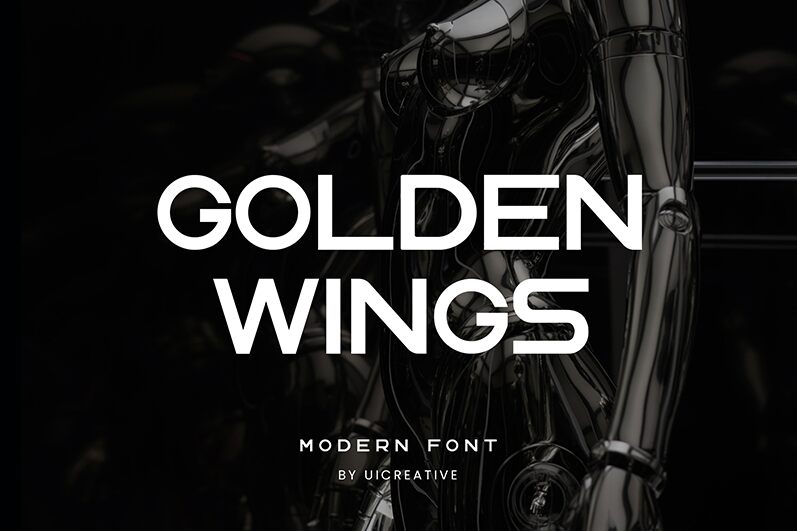
GoldenWings
Golden Wings font by UI Creative is a modern sans serif with an expanded width. Its geometric shapes, clean lines, and precise angles reflect the font’s futuristic value. A symmetrical balance mixed with minimalistic aspects brings familiarity as well as memorability to this legible typeface.